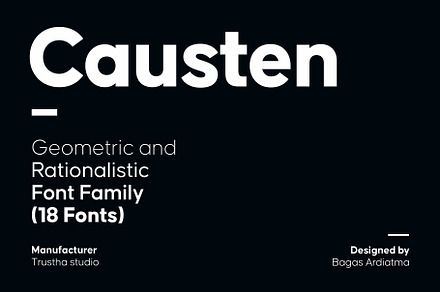
Causten Font Family
A large sans family covering an extensive weight range with matching italics, built as a complete working system.
Comprehensive families remove the need to pair, since every hierarchy level from caption to display is available within one design.
- Extensive weights with true italics
- Consistent metrics throughout
Made for
- Complete brand typography systems
- Editorial and publication design
- Interface and product typography
- Web and print consistency